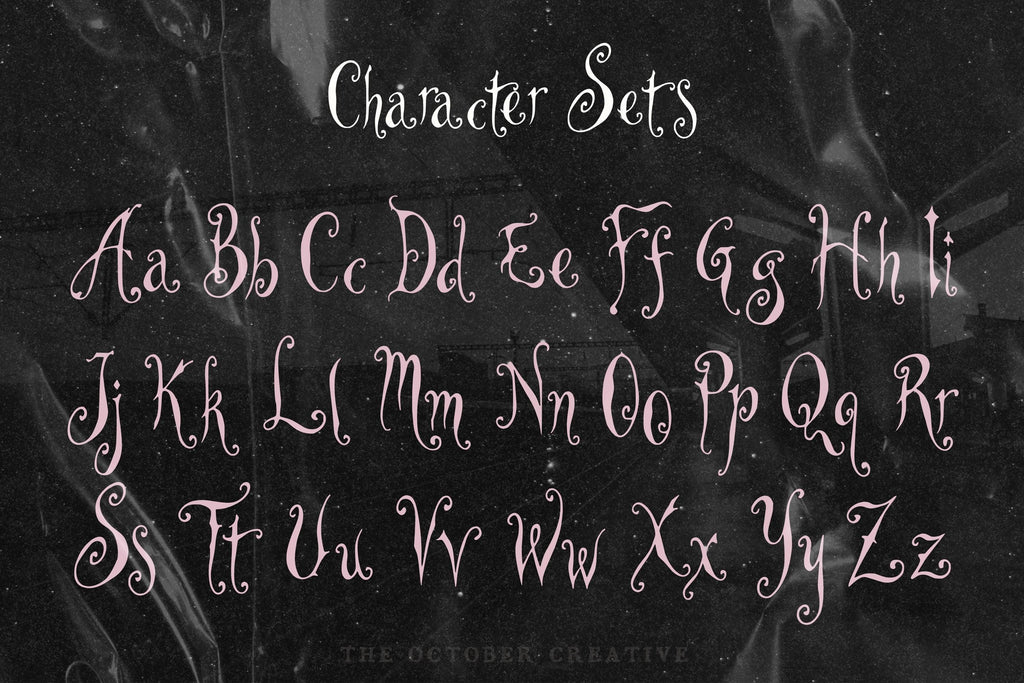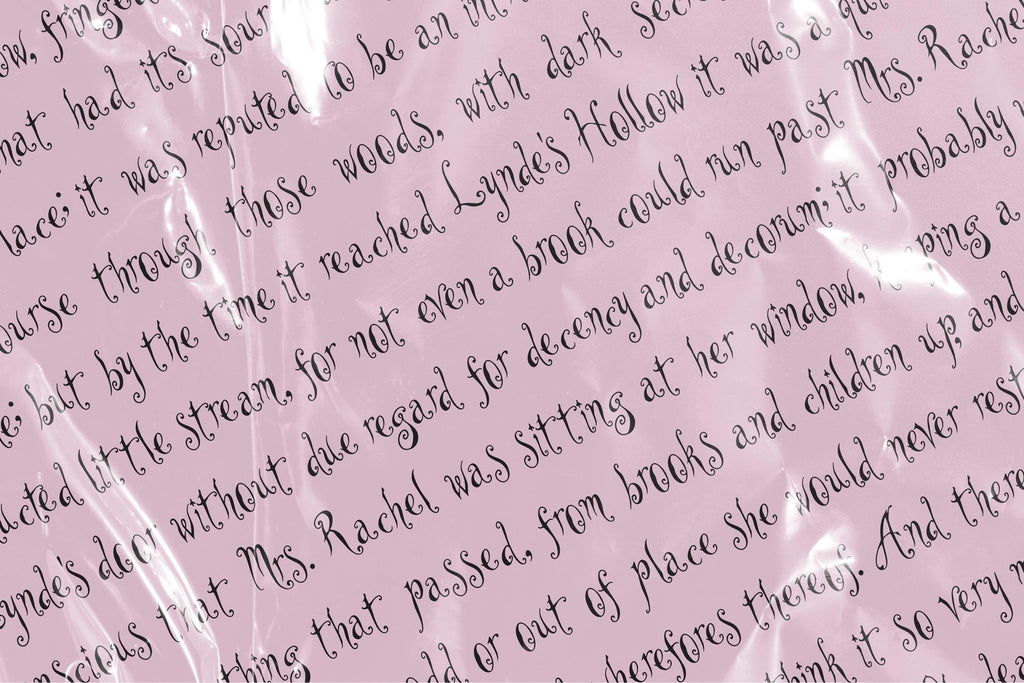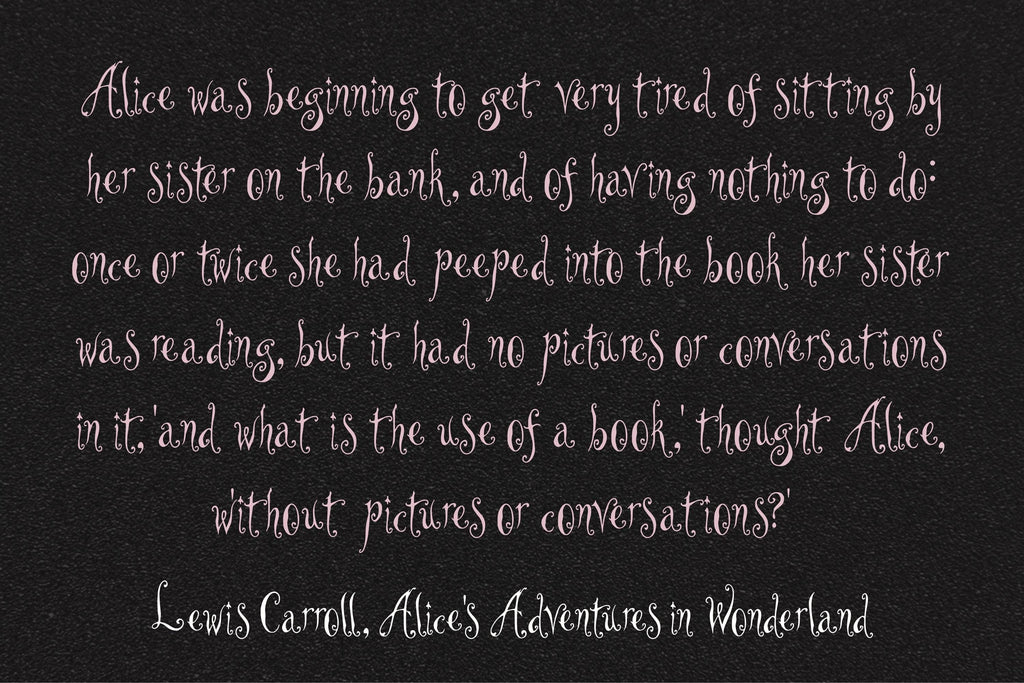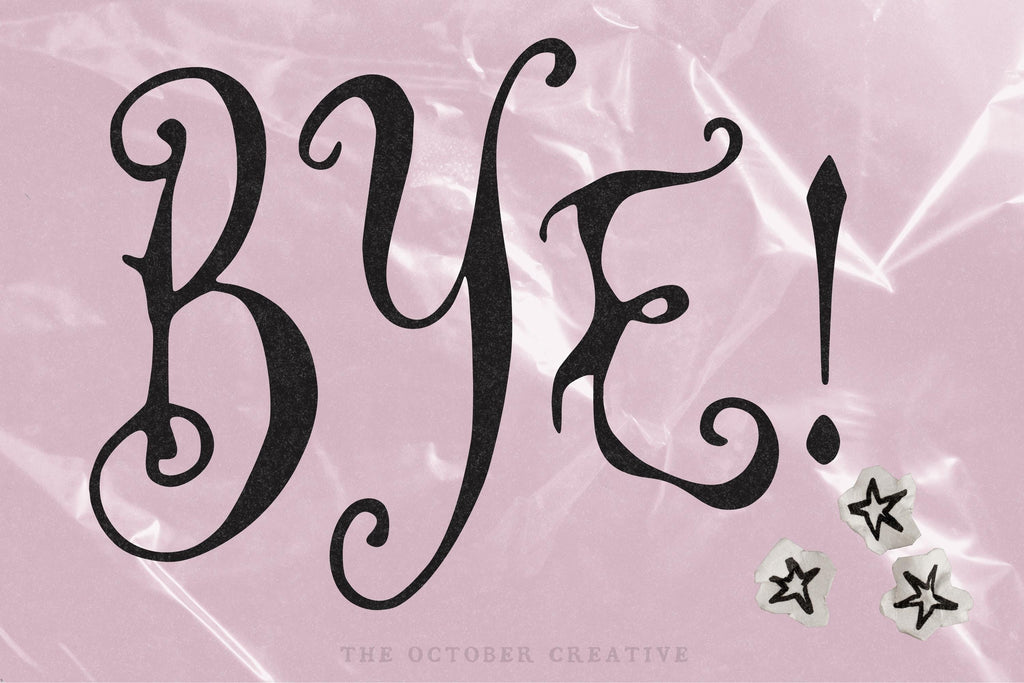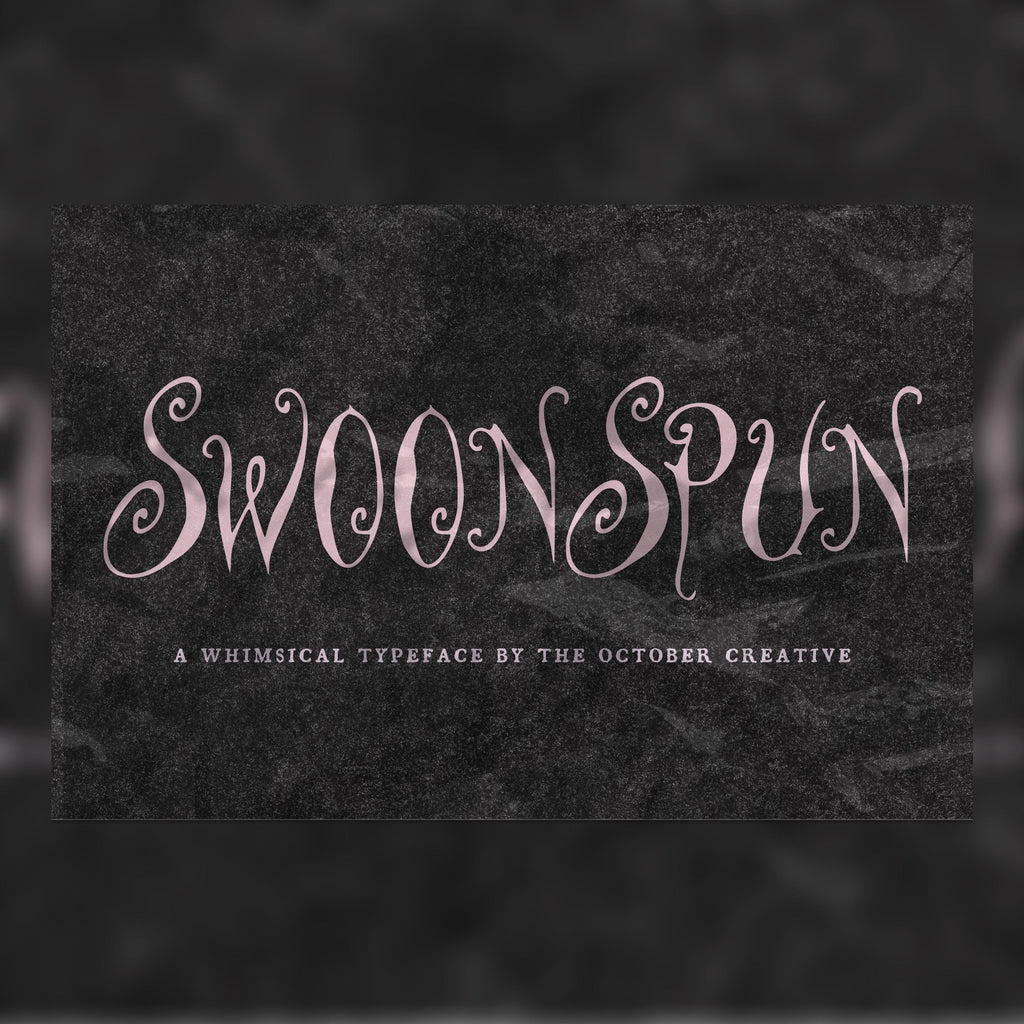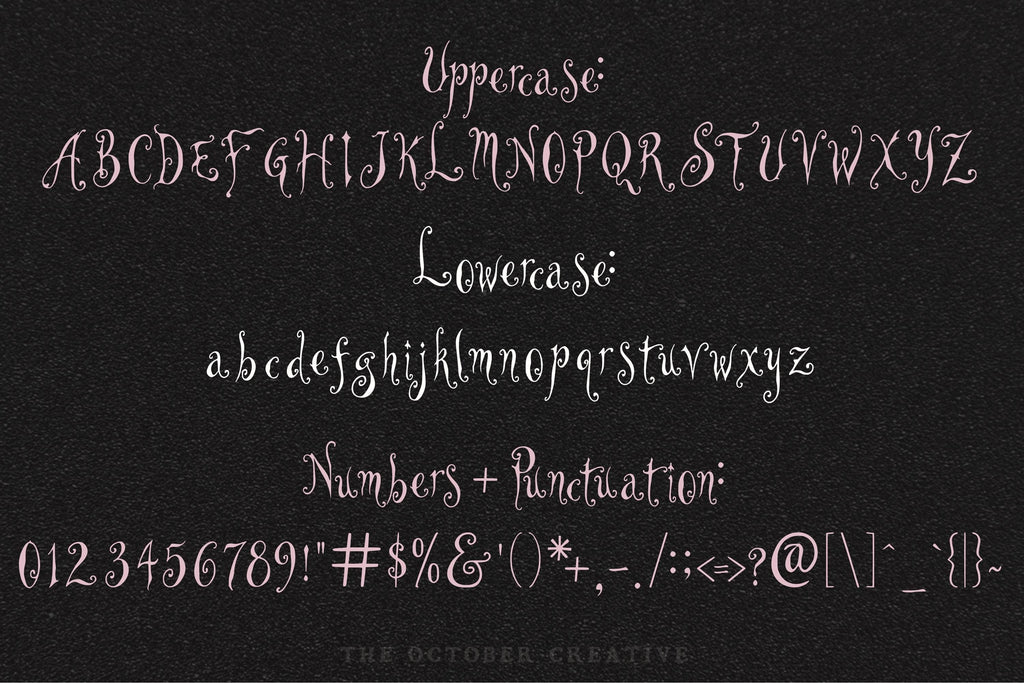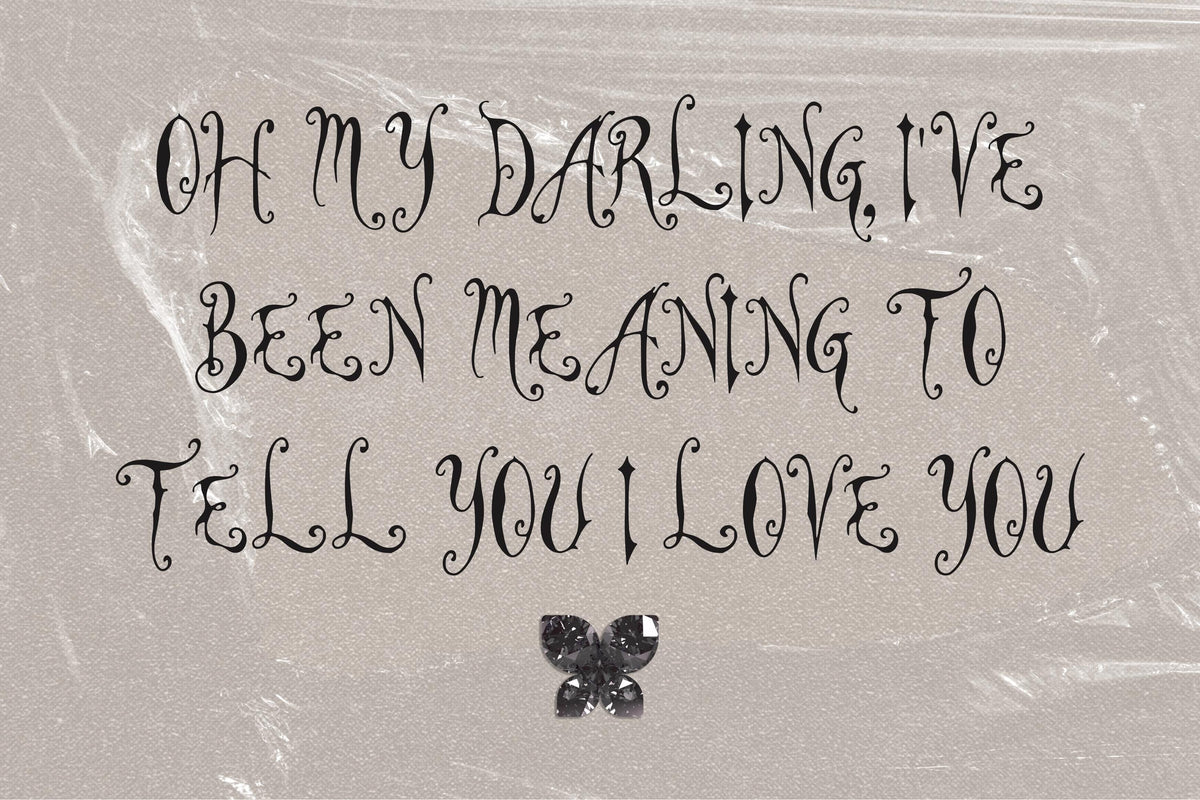
Swoonspun Font
Swoonspun gives tall, delicate letters wide curls and a gentle lift through each word. It's a lovely match for love letters, romantic cards, and wedding details that call for something a little more affectionate.